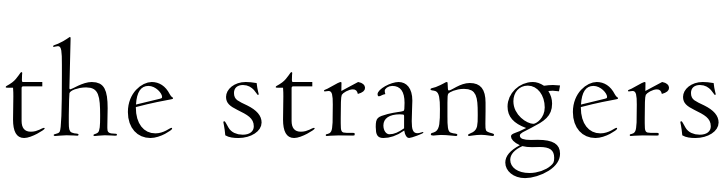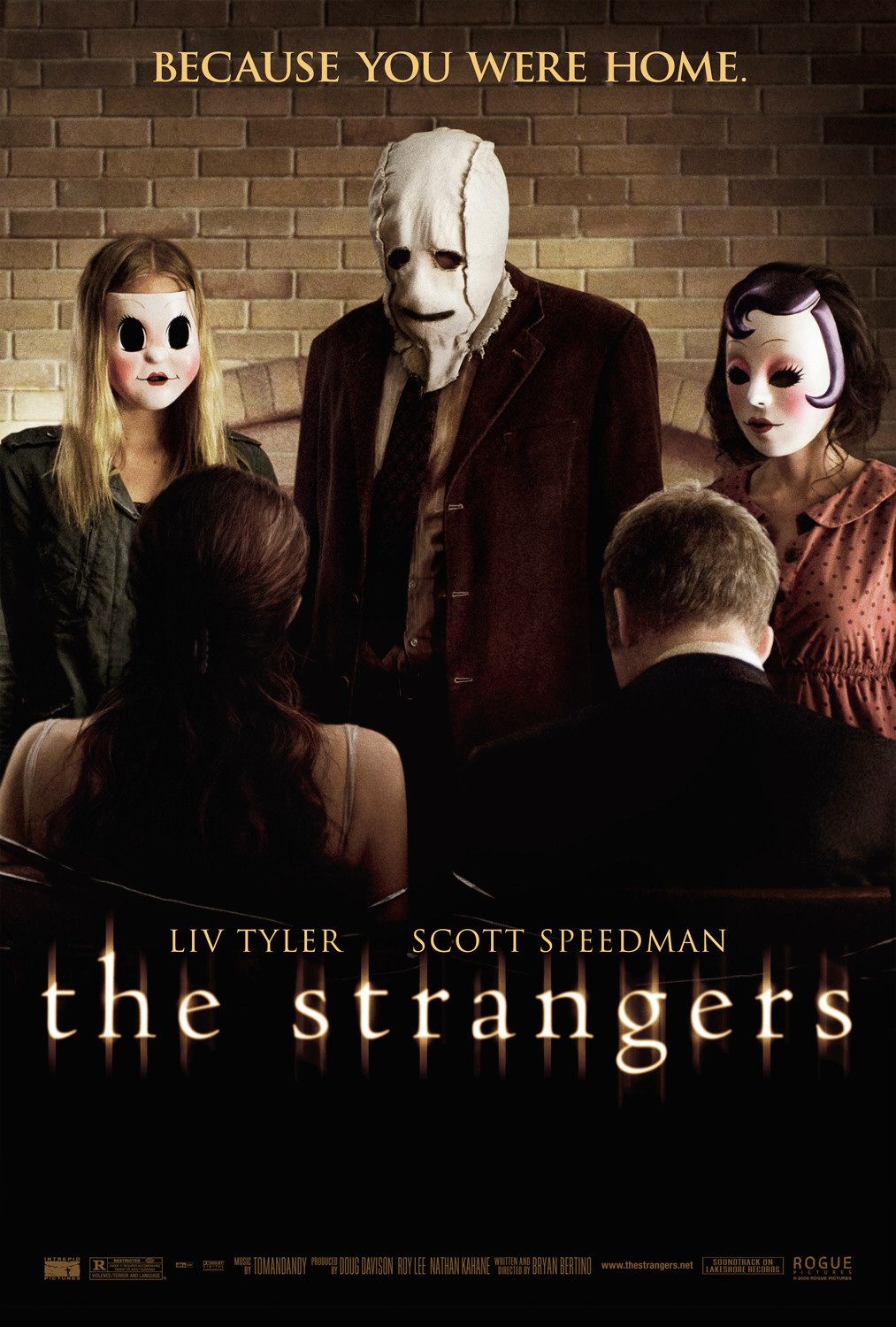
The Strangers (film) Font
Fonts in UseThe Strangers is a 2008 horror film directed by Bryan Bertino. The movie follows a couple who are terrorized by a group of masked strangers while staying in an isolated vacation home.
The poster for the movie features the font Venetian 301 created by Bitstream which is an old-fashioned serif typeface available in Roman, Demi, and Bold weights with corresponding italics.